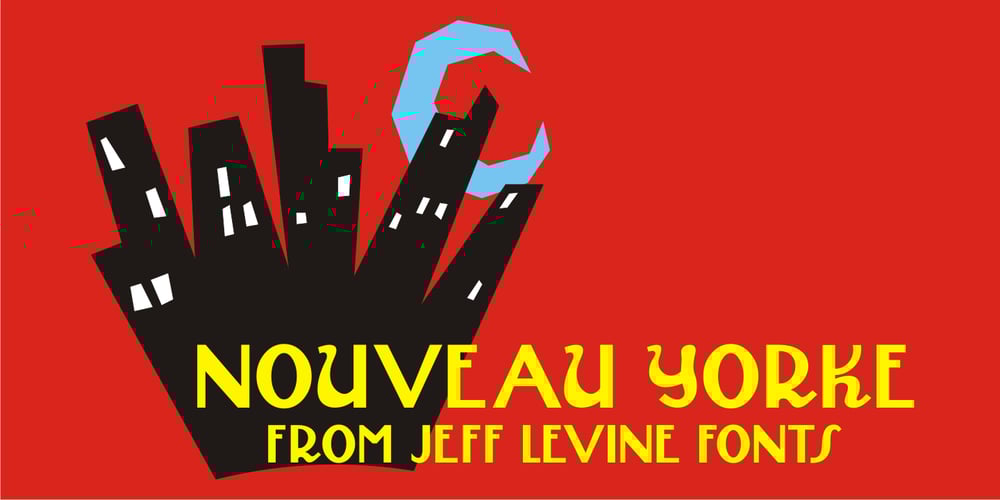
Nouveau Yorke JNL Font Family was designed by Jeff Levine and published by Jeff Levine. Nouveau Yorke JNL contains 1 styles and family package options. Inspired by the hand-lettered address for the publisher of some 1920s sheet music, Nouveau Yorke JNL is a throwback to a simpler period in time when sheet music and piano rolls were the mainstay of parlor entertainment.